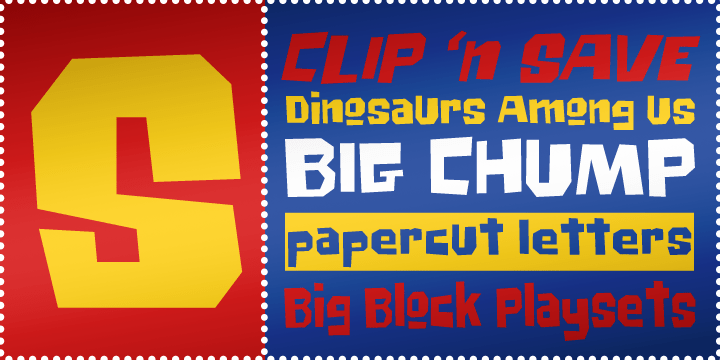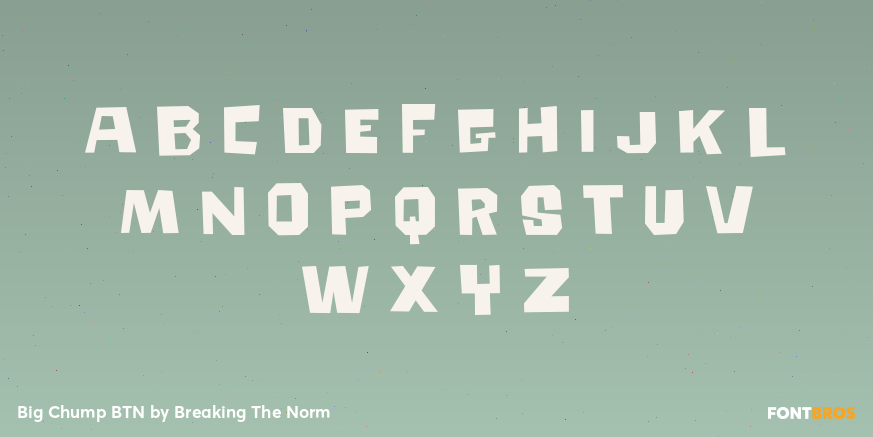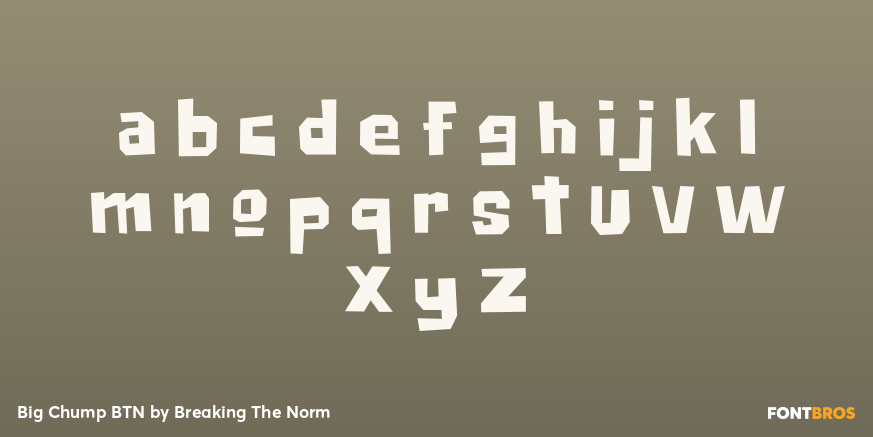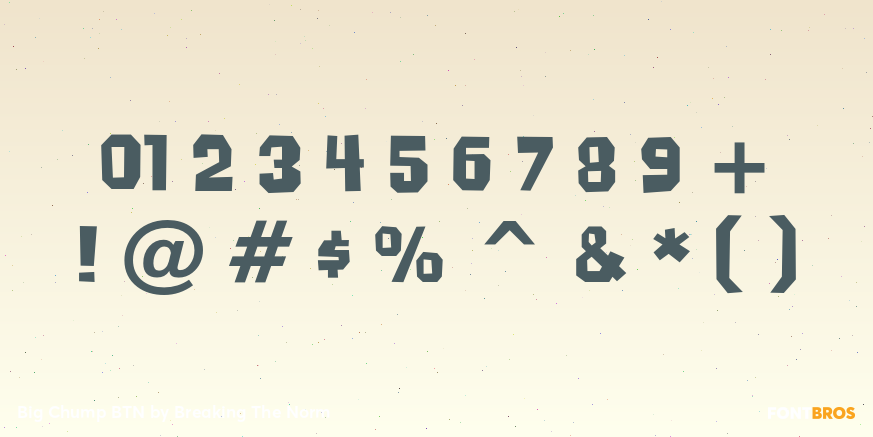
Big Chump BTN
Font Family by Breaking The Norm
Big Chump BTN is a heavy display family with a clumsy hand-cut look that feels playful, bold, and full of raw personality. Inspired by the uneven charm of papercut lettering, it carries a loose, chunky energy that also nods to graffiti styling and scrapbook design. Big Chump BTN is ideal for posters, kids' graphics, craft projects, packaging, party materials, playful branding, and any design that needs a loud, offbeat voice. With expanded style options including Outline, Reversed, Oblique, and Condensed variations, the family gives designers multiple ways to build eye-catching, energetic typography with a handmade feel.